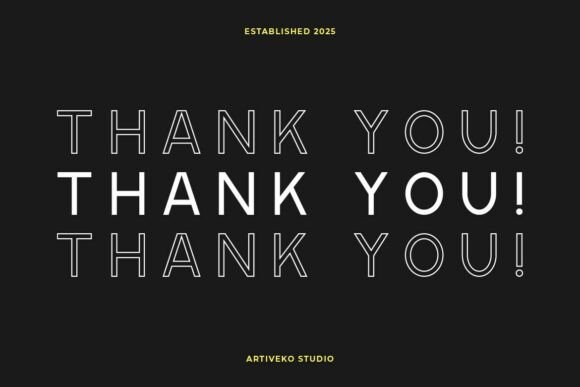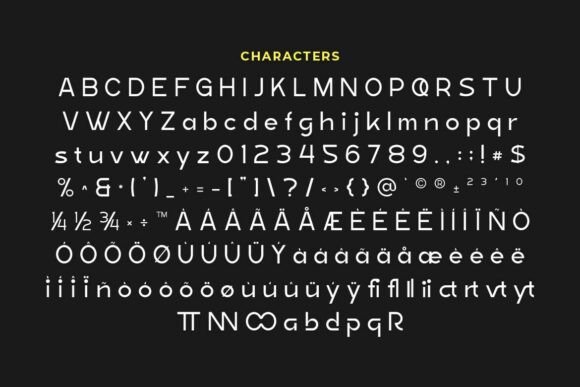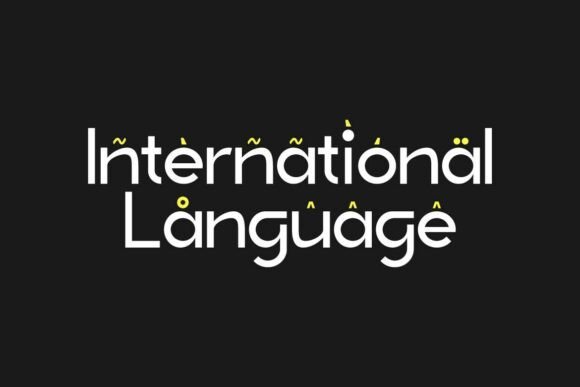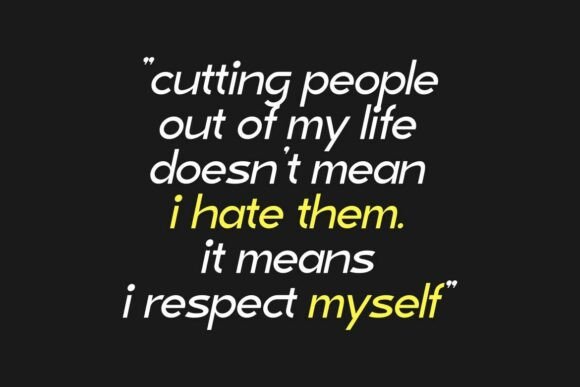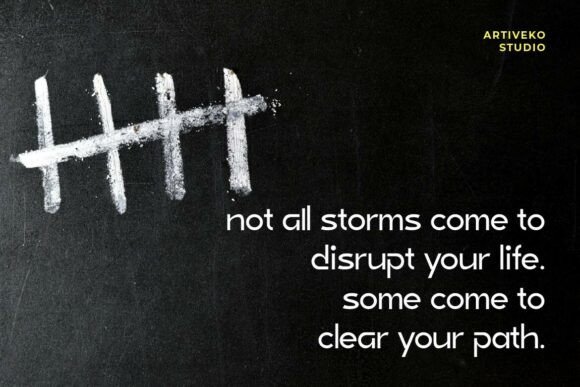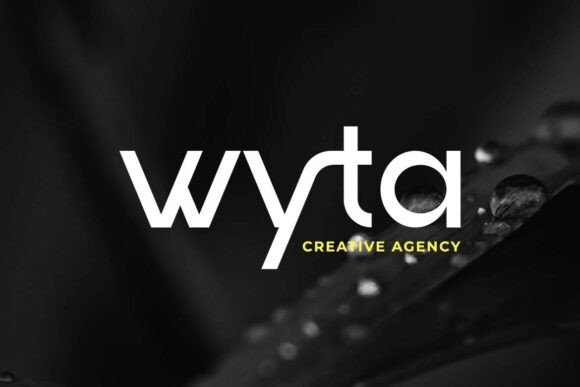
Unleash Your Creativity with Creapy Font: The Ultimate Modern Sans Serif
In the world of typography, fonts play a crucial role in conveying messages, expressing emotions, and creating lasting impressions. For designers, crafters, and artists, finding the perfect font can be a daunting task. However, if you’re looking for a striking modern sans serif font that breaks the rules and commands attention, look no further than Creapy Font. In this article, we’ll dive into the unique features, applications, and benefits of Creapy Font, and explore why it’s perfect for your next creative project.
Introducing Creapy Font: A Bold and Edgy Sans Serif
Creapy is a modern sans serif font that defies conventions with its quirky shapes, bold structure, and playful yet edgy vibe. Designed to make a statement, Creapy is perfect for projects that require a bold and unforgettable identity. Whether you’re working on branding, posters, headlines, streetwear, album covers, or any other creative endeavor, Creapy Font is sure to turn heads.
Unique Features of Creapy Font
So, what sets Creapy Font apart from other modern sans serif fonts? Here are some of its unique features:
• Quirky Shapes: Creapy Font boasts quirky shapes that add a touch of playfulness to your designs. Its irregular curves and angles create a sense of movement and energy, making it perfect for dynamic and attention-grabbing projects.
• Bold Structure: Creapy’s bold structure ensures that your message is conveyed with confidence and authority. Its sturdy lines and geometric shapes make it ideal for headlines, titles, and other prominent text elements.
• Playful yet Edgy Vibe: Creapy Font strikes the perfect balance between playfulness and edginess. Its modern sans serif design makes it versatile enough for a wide range of applications, from creative branding to streetwear and album covers.
Applications of Creapy Font
Creapy Font is an incredibly versatile typeface that can be used in various creative projects. Here are some of the ways you can apply Creapy Font:
• Branding: Create a bold and memorable brand identity with Creapy Font. Its unique shapes and bold structure make it perfect for logos, business cards, and other marketing materials.
• Posters: Add a touch of modernity to your posters with Creapy Font. Its quirky shapes and playful vibe make it ideal for promoting events, products, or services.
• Headlines: Make your headlines stand out with Creapy Font. Its bold structure and edgy vibe ensure that your message is conveyed with confidence and authority.
• Streetwear: Creapy Font is perfect for streetwear designs, such as t-shirts, hats, and other apparel. Its modern sans serif design and quirky shapes make it a great fit for fashion brands and designers.
• Album Covers: Add a touch of creativity to your album covers with Creapy Font. Its bold structure and playful vibe make it ideal for music artists, producers, and designers.
Benefits of Using Creapy Font
So, why should you choose Creapy Font for your next creative project? Here are some of the benefits of using Creapy Font:
• Attention-Grabbing: Creapy Font is designed to command attention. Its quirky shapes, bold structure, and playful yet edgy vibe ensure that your message is conveyed with confidence and authority.
• Versatile: Creapy Font is an incredibly versatile typeface that can be used in various creative projects, from branding and posters to streetwear and album covers.
• Unique: Creapy Font is a one-of-a-kind typeface that will set your designs apart from the rest. Its quirky shapes and bold structure ensure that your message is conveyed with creativity and originality.
Font Name Creapy Font
Author Artiveko
In conclusion, Creapy Font is a striking modern sans serif font that breaks the rules and commands attention. With its quirky shapes, bold structure, and playful yet edgy vibe, Creapy is perfect for designers, crafters, and artists looking to create bold and unforgettable designs. Whether you’re working on branding, posters, headlines, streetwear, album covers, or any other creative project, Creapy Font is sure to turn heads. So, why settle for ordinary fonts when you can unleash your creativity with Creapy Font?